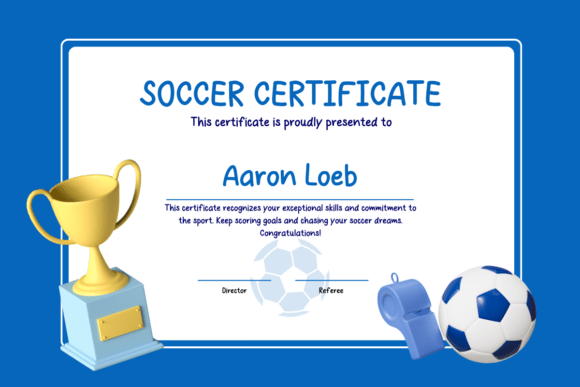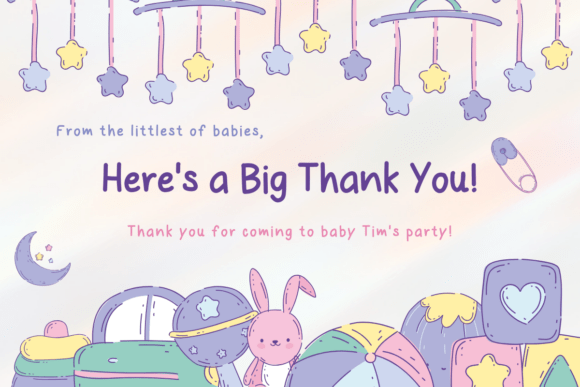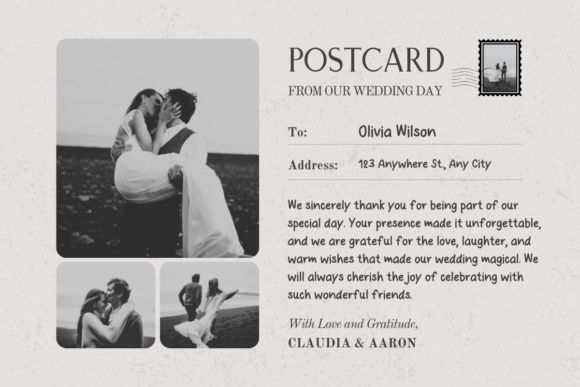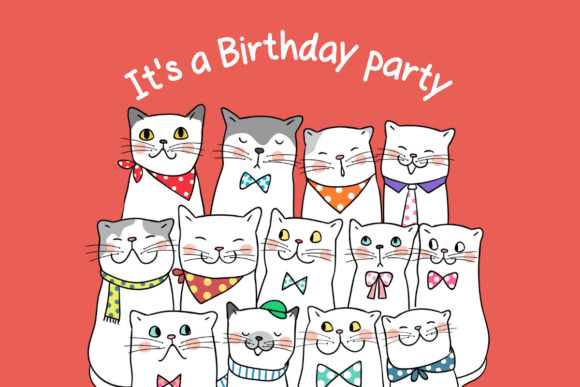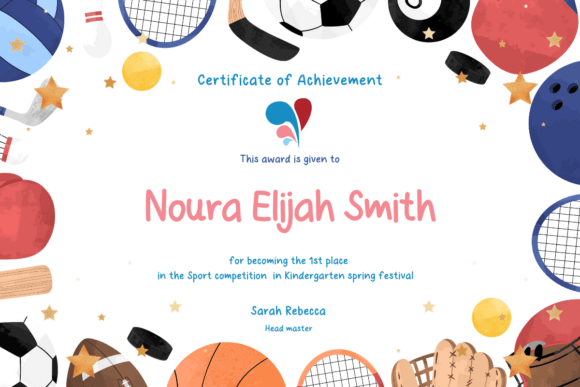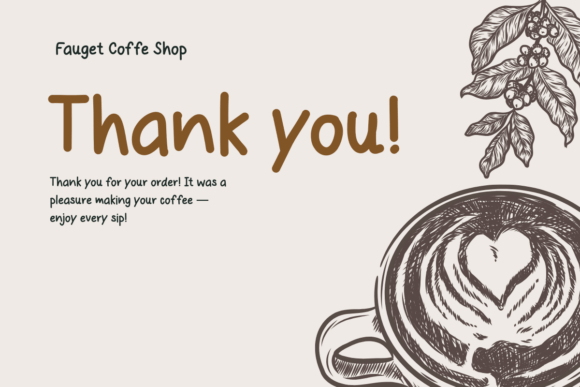
Introducing Cloud Pop: The Ultimate Font for Adding a Touch of Joy and Friendliness to Your Designs
Welcome to Cloud Pop, a richly expressive font that infuses every project with a sense of joy and friendliness. Its gentle strokes create an inviting atmosphere around each letter, making it a divine fit for personal projects, elegantly crafted invitations, and delightfully captivating social media graphics. In this article, we’ll explore the unique features of Cloud Pop and how it can elevate your designs to the next level.
The Unique Charm of Cloud Pop
Cloud Pop boasts a humble, handcrafted charm that lends a unique and artistic touch to every design it adorns. The font’s gentle strokes and rounded edges create a sense of approachability and warmth, making it perfect for designs that require a personal touch. Whether you’re creating invitations, social media graphics, or personal projects, Cloud Pop is the perfect choice for adding a dash of delightful mischief to your creative efforts.
Key Features of Cloud Pop
- Richly Expressive: Cloud Pop is designed to infuse your projects with a sense of joy and friendliness, making it perfect for designs that require a personal touch.
- Gentle Strokes: The font’s gentle strokes create an inviting atmosphere around each letter, making it perfect for creating elegant and sophisticated designs.
- Handcrafted Charm: Cloud Pop boasts a humble, handcrafted charm that lends a unique and artistic touch to every design it adorns.
- PUA Encoded Glyphs: Cloud Pop is completely ready with a full suite of standard PUA Encoded glyphs, ensuring smooth compatibility with a broad spectrum of applications.
Cloud Pop is designed to be versatile and compatible with a wide range of applications, including Adobe Photoshop, Corel, Adobe Illustrator, Canva, and more. This means you can use Cloud Pop for a variety of design projects, from creating social media graphics to designing elegant invitations and personal projects.
Why Choose Cloud Pop?
So why choose Cloud Pop for your design projects? Here are just a few reasons:
- Add a Personal Touch: Cloud Pop’s gentle strokes and handcrafted charm make it perfect for adding a personal touch to your designs.
- Create Engaging Designs: Cloud Pop’s unique and artistic style makes it perfect for creating engaging and captivating designs that grab attention.
- Easy to Use: Cloud Pop is easy to use and compatible with a wide range of applications, making it perfect for designers of all levels.
Nurture Your Creativity with Cloud Pop
Cloud Pop is more than just a font – it’s a way to nurture your creativity and bring your designs to life. With its playful spirit and unique charm, Cloud Pop is the perfect choice for designers and crafters who want to add a touch of joy and friendliness to their designs. So why wait? Embrace the playful spirit of Cloud Pop and take your designs to the next level.
In conclusion, Cloud Pop is a richly expressive font that infuses every project with a sense of joy and friendliness. Its gentle strokes, handcrafted charm, and PUA encoded glyphs make it perfect for a wide range of design projects, from personal projects to social media graphics. With its versatility, compatibility, and ease of use, Cloud Pop is the perfect choice for designers and crafters who want to add a touch of delightful mischief to their creative efforts.